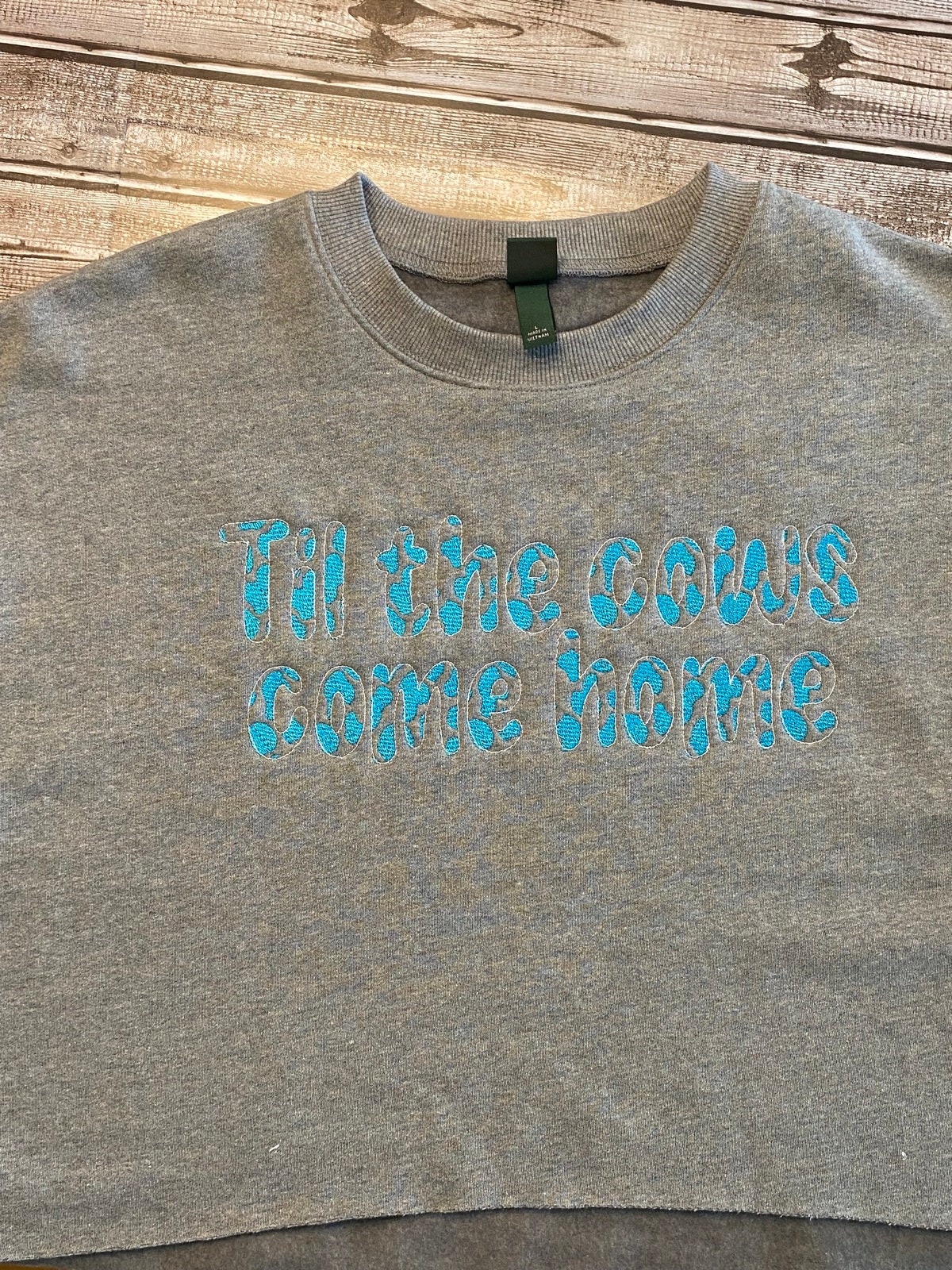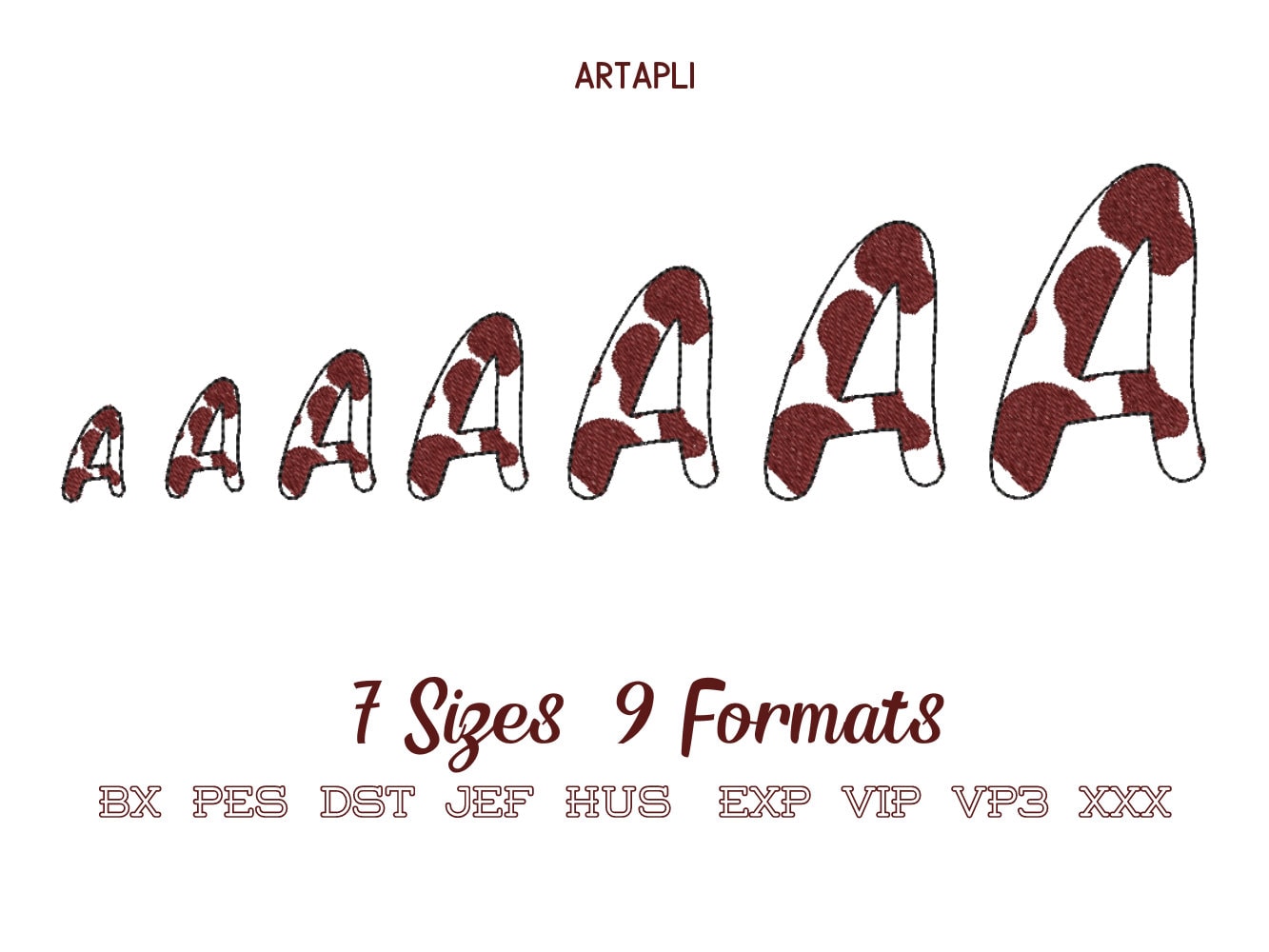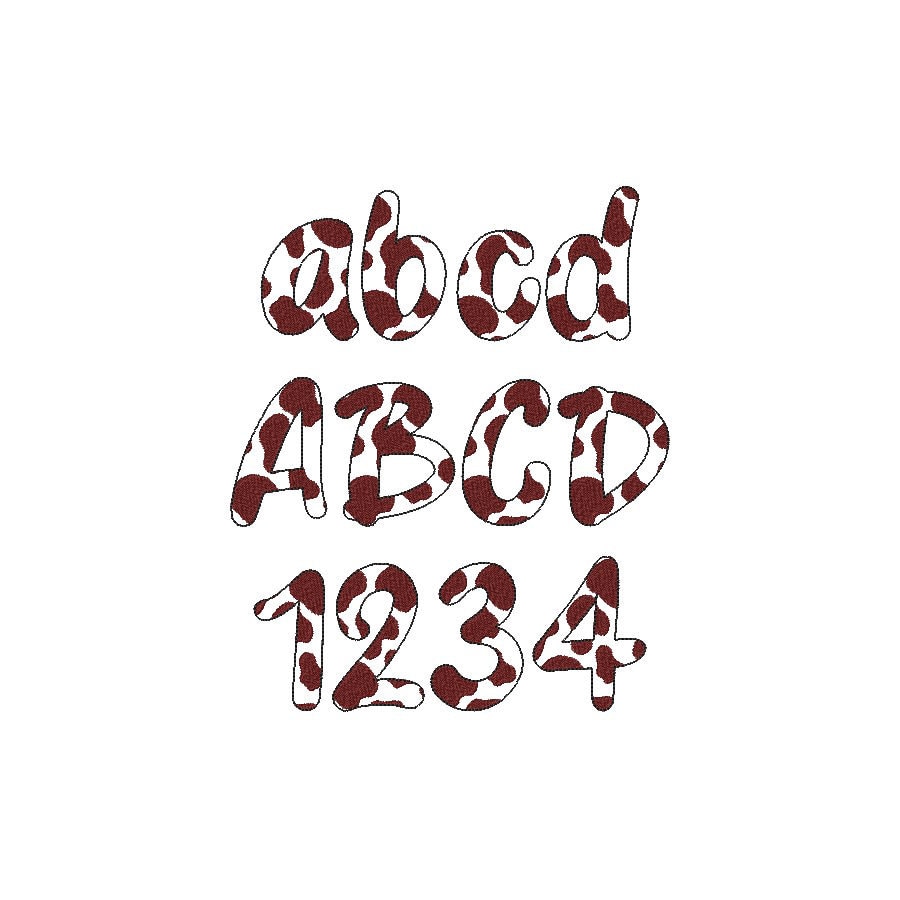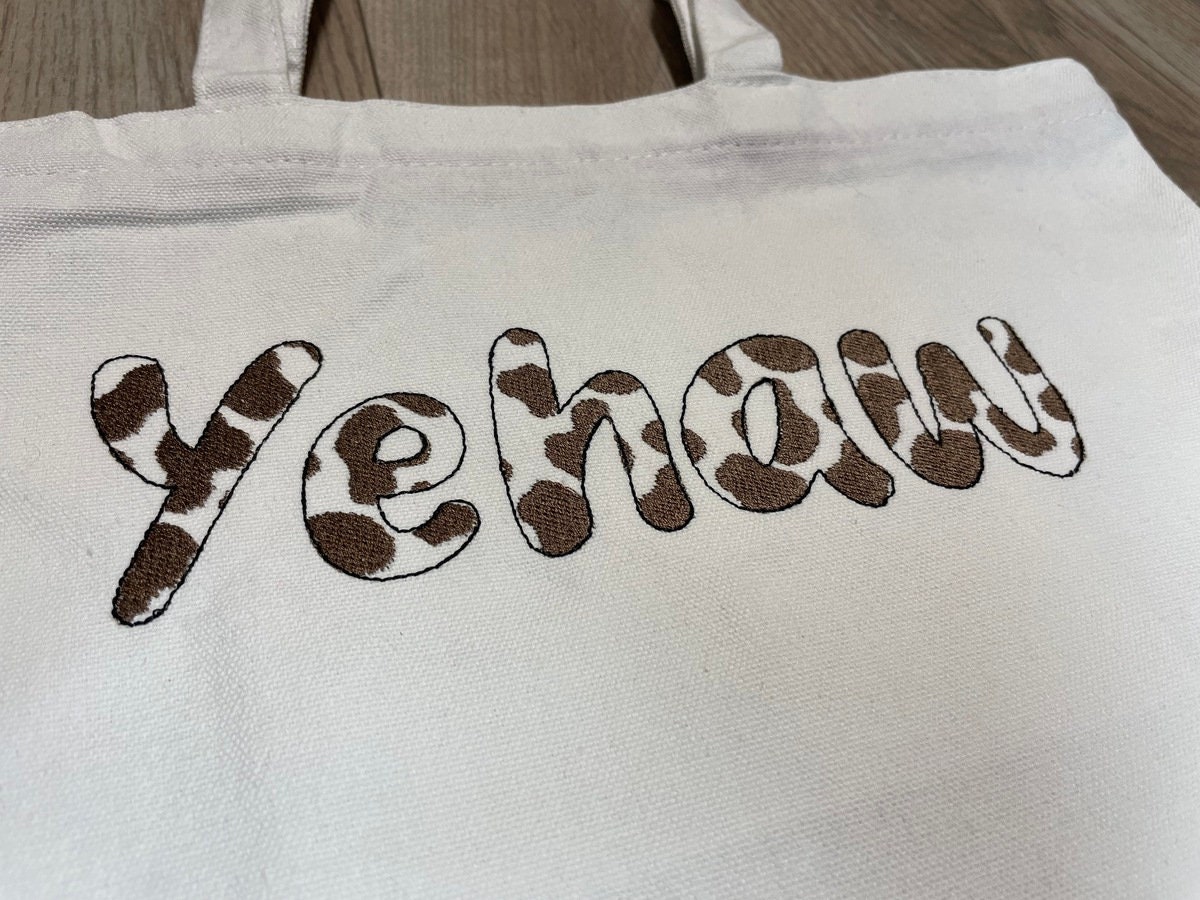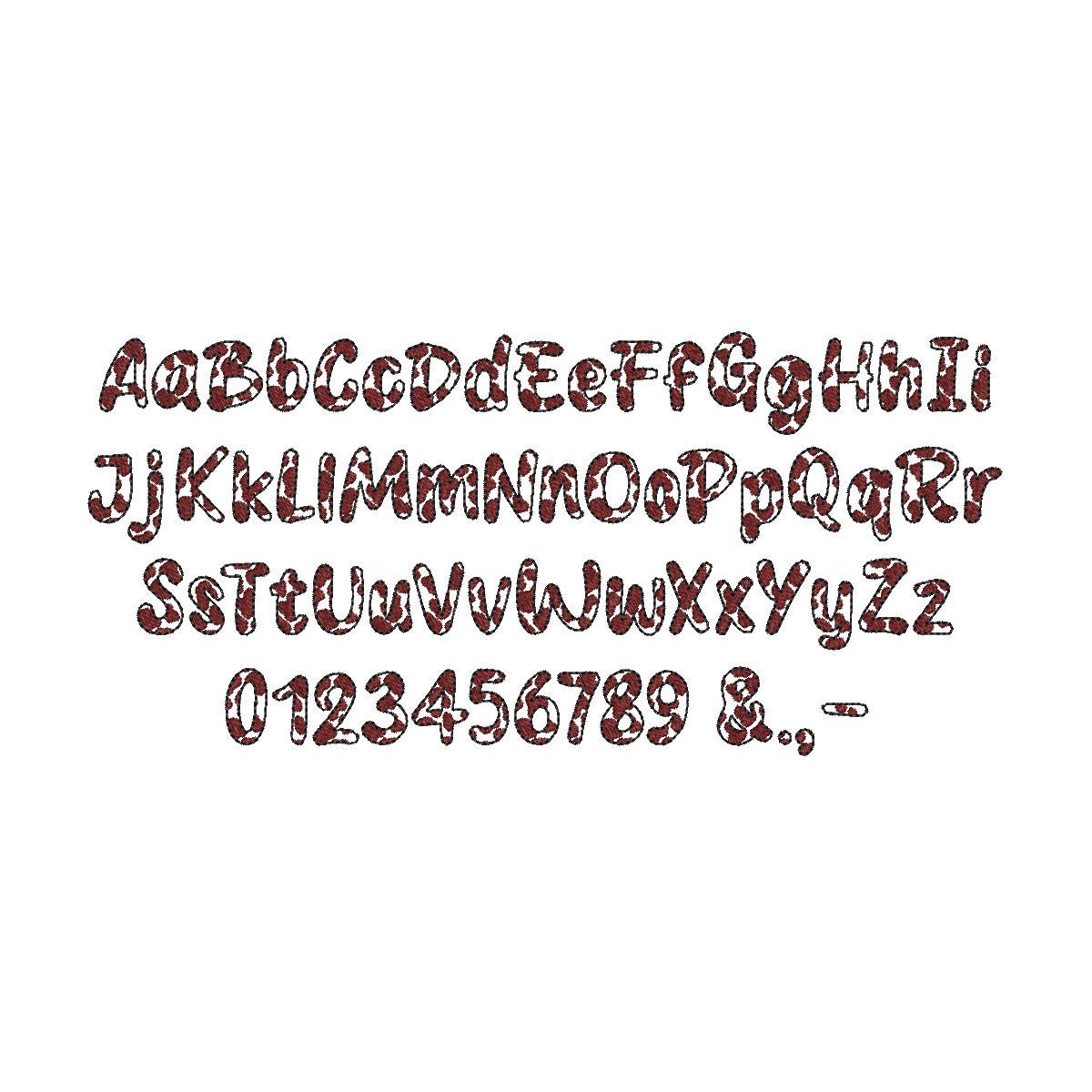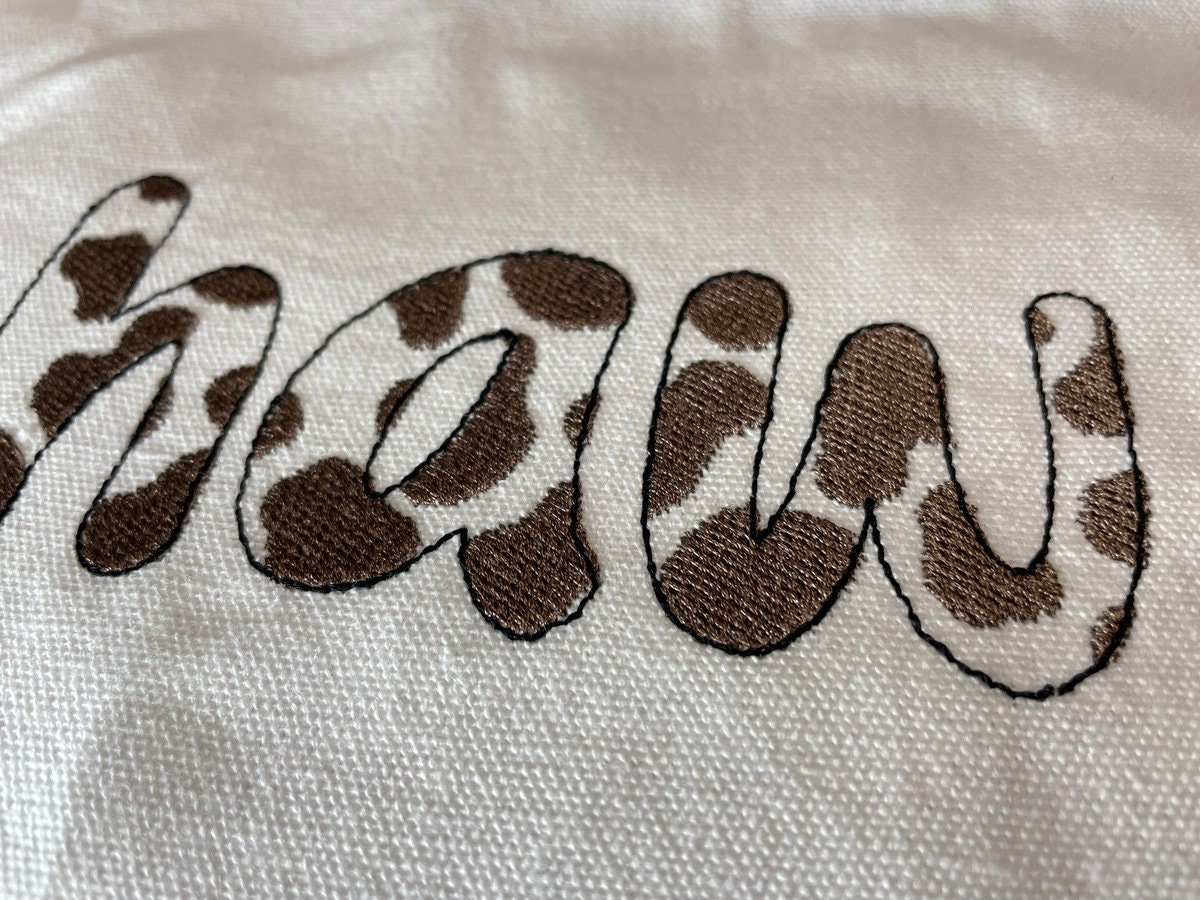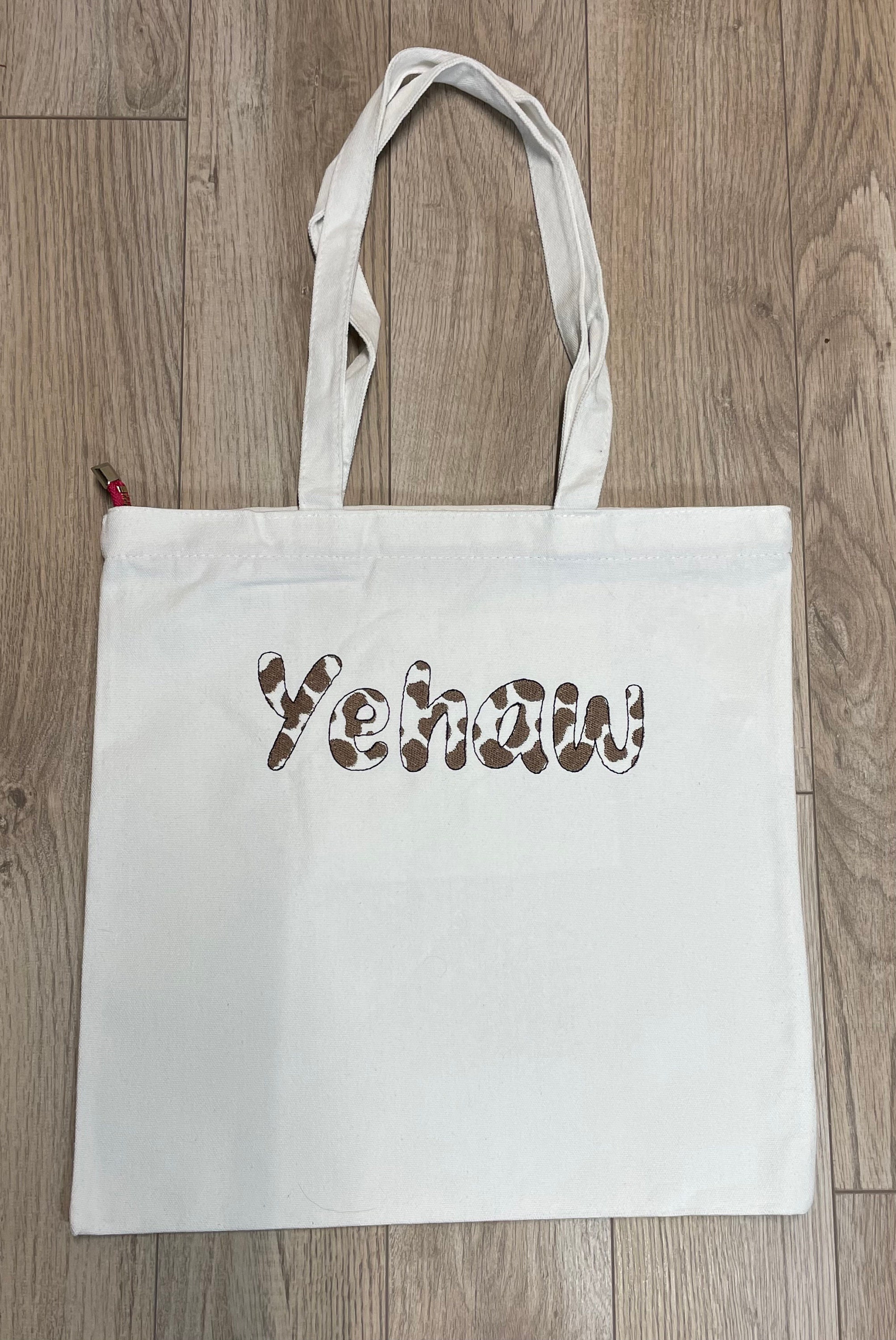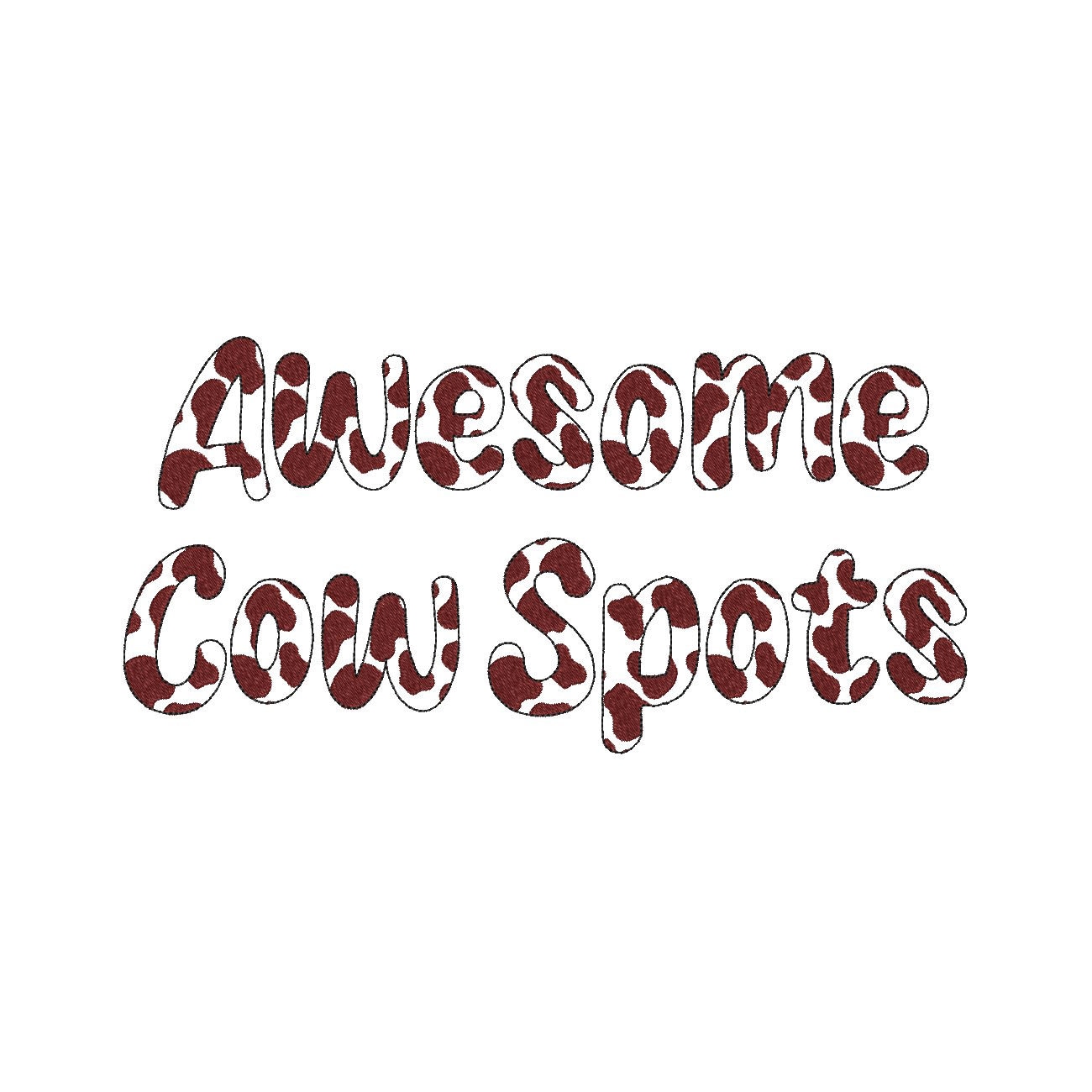
Awesome Cow spots patterned Font alphabet letters machine embroidery designs uppercase lowercase and numbers 0.8 up to 3 inches BX included
Uppercase and lowercase letters Aa-Zz, numbers 0-9, and punctuation & . , -
The font has fill stitch cow spots and outline. The background fabric looks through. Stunning effect!
May also be used as raggedy edge applique. Just stitch and trim excess fabric.